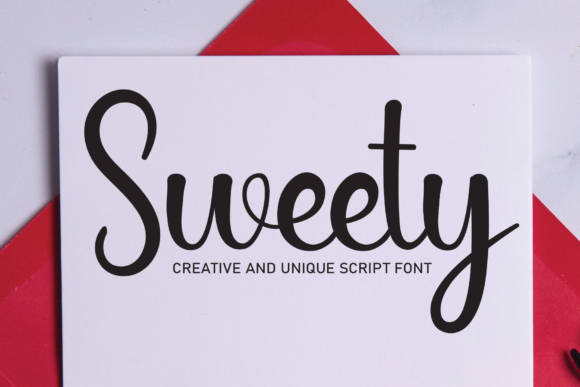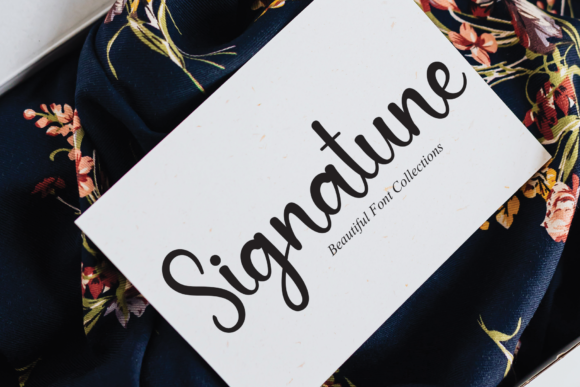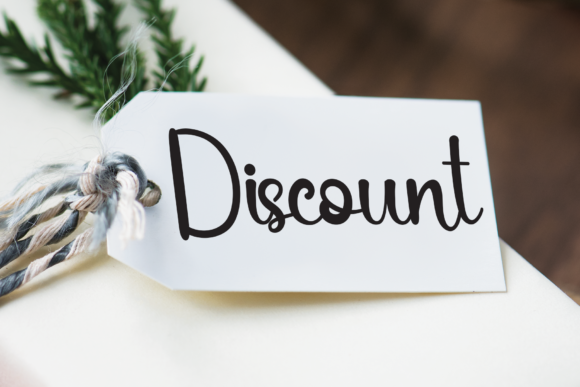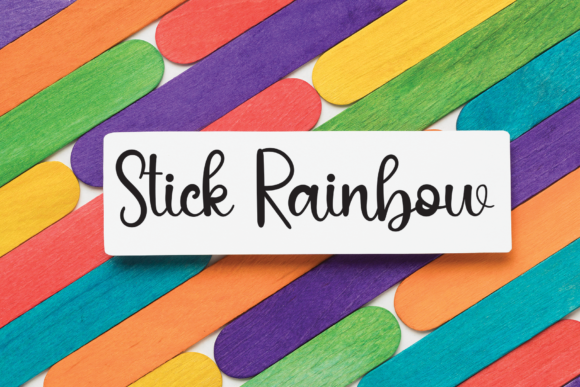
Sweety Font
About Sweety Font
Sweety is a lovely handwritten font that was crafted with great care to produce the expected results. This font can be used to write various kinds of products according to their individual needs.